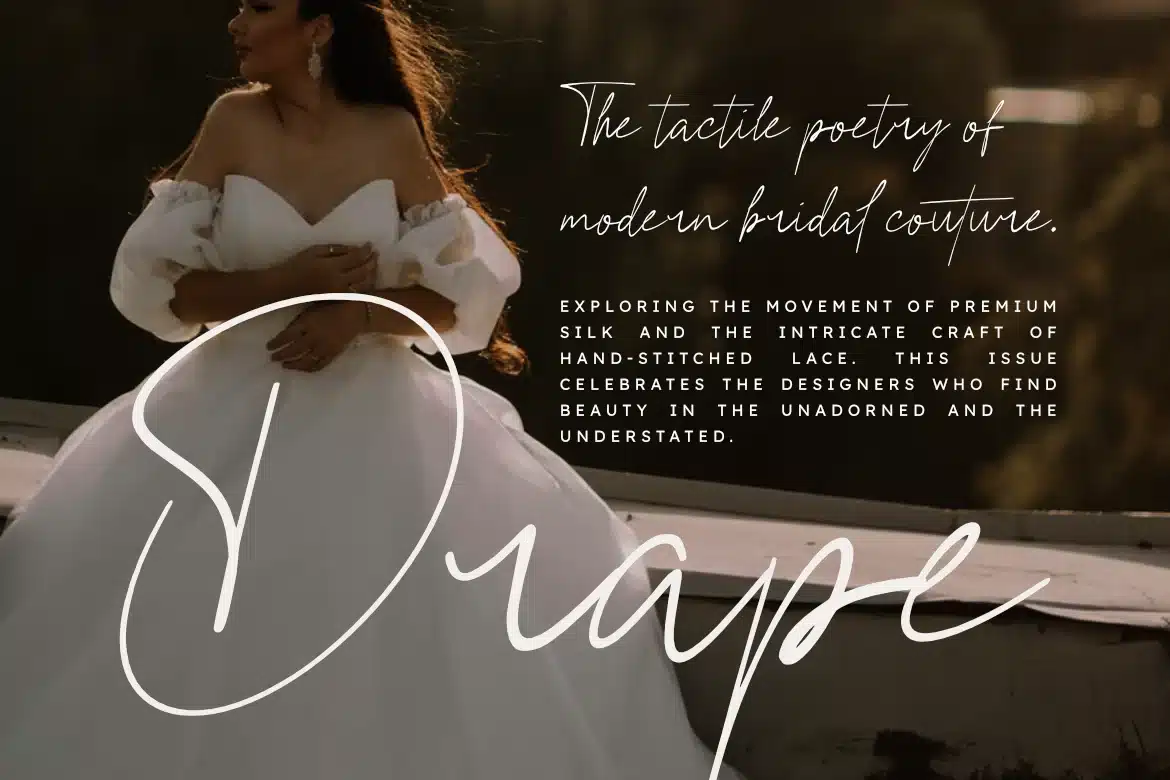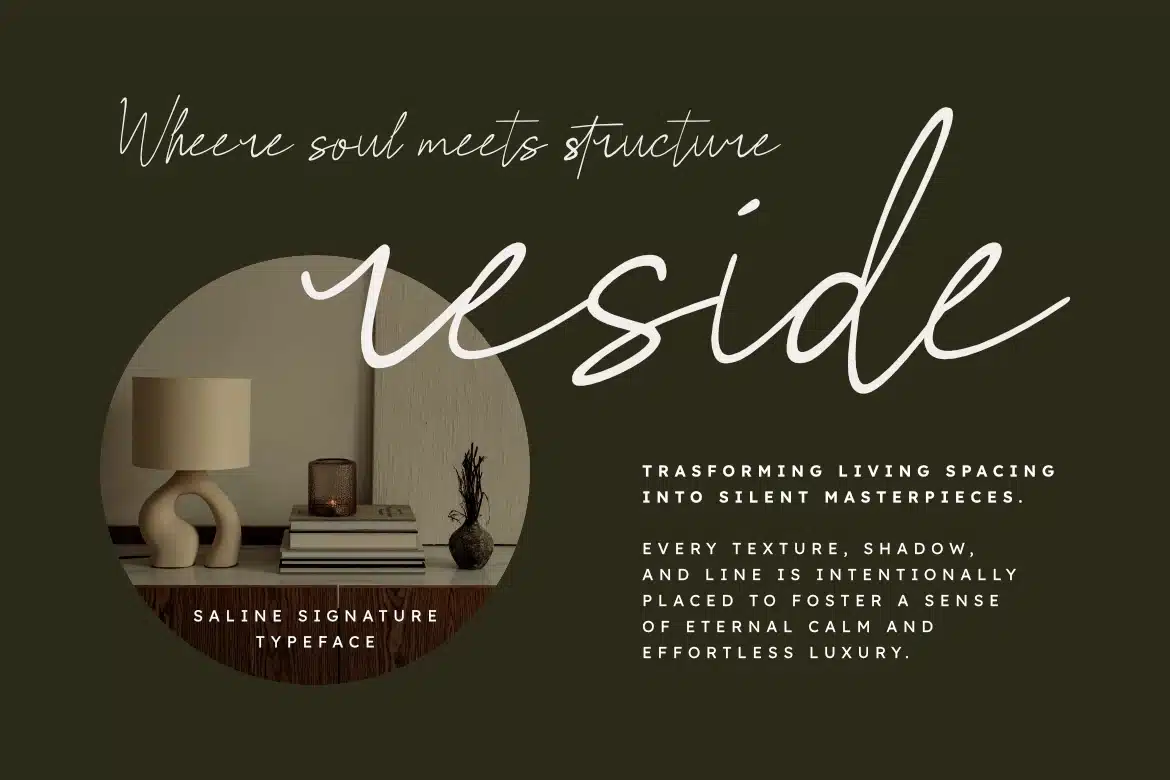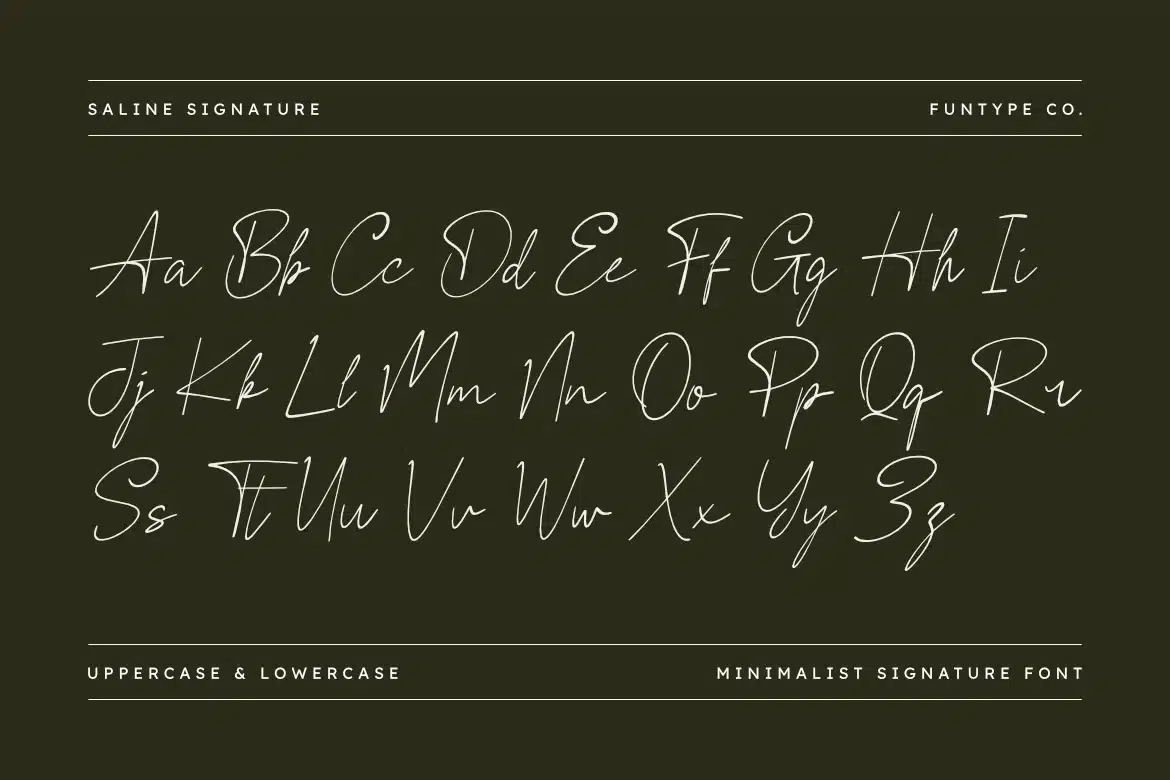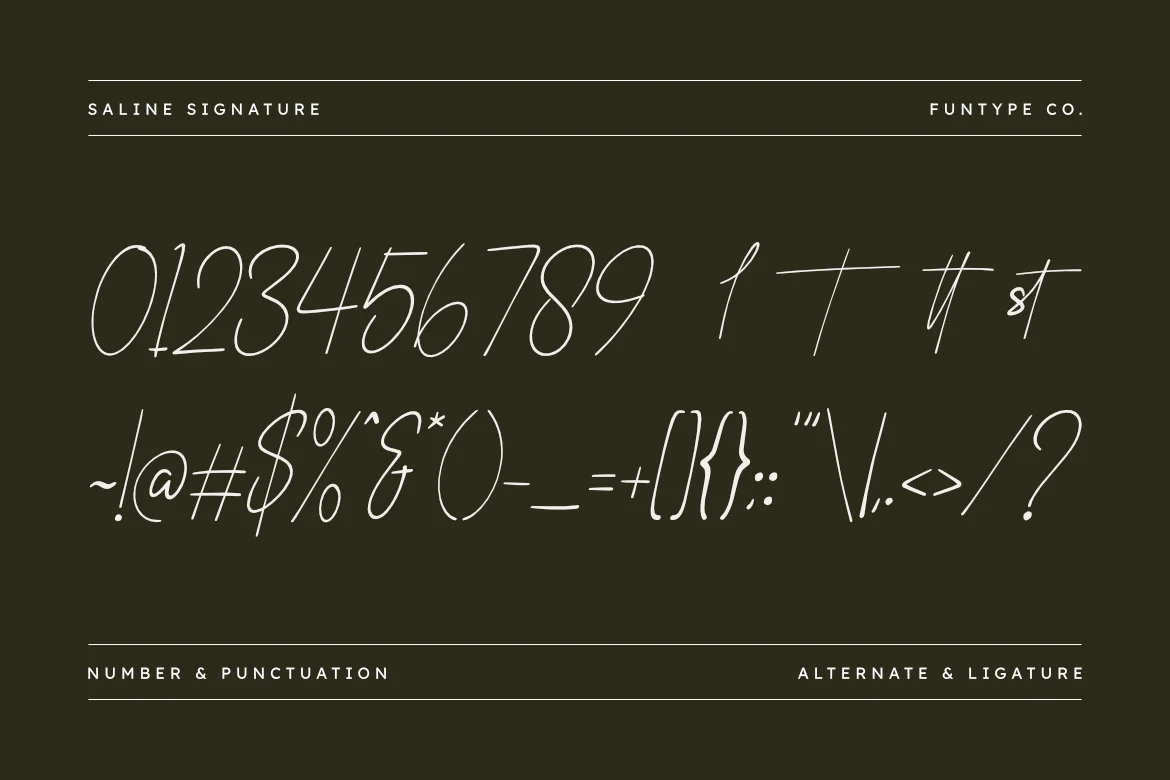
Saline Signature – Minimalist Signature Font
Saline Signature is a sophisticated and clean minimalist signature font, thoughtfully designed to capture the essence of contemporary elegance and professional storytelling. With its consistent light monoline weight and natural, airy strokes, Saline Signature offers a bespoke aesthetic that brings a touch of effortless grace to any creative project.
This font is the ideal choice for designers looking to add a professional yet personal touch to their work. Whether you are crafting a high-end lifestyle logo, chic photography watermarks, or elegant editorial layouts, Saline Signature provides a seamless blend of modern simplicity and timeless sophistication.
Main Features:
- Clean and Minimalist Design: Optimized for a high-end, professional look.
- Refined Monoline Letterforms: Meticulously crafted for superior clarity and style.
- Authentic Signature Feel: Smooth, flowing strokes for a genuine handcrafted aesthetic.
- Professional Versatility: Perfect for luxury branding and delicate identity design.
Best Used For:
Photography watermarks, luxury boutique logos, elegant social media branding, lifestyle magazine headers, sophisticated wedding stationery, and professional business cards.